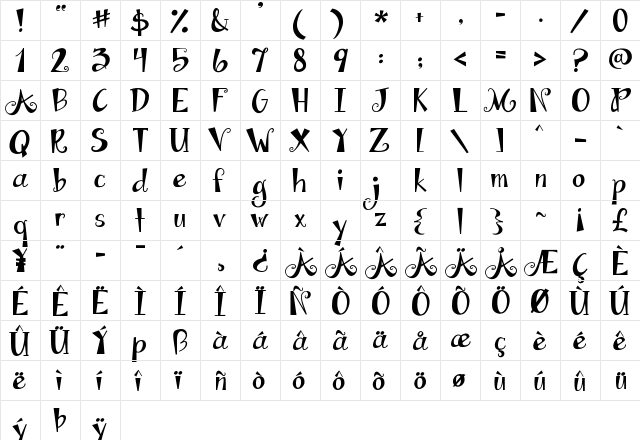
Janda Apple Cobbler Solid Regular
| Foundry | Kimberly Geswein |
| Designer | Kimberly Geswein |
Design Context for Janda Apple Cobbler Solid Typeface
Janda Apple Cobbler Solid is a composed and adaptable typeface that performs quietly and consistently across a wide range of design contexts.